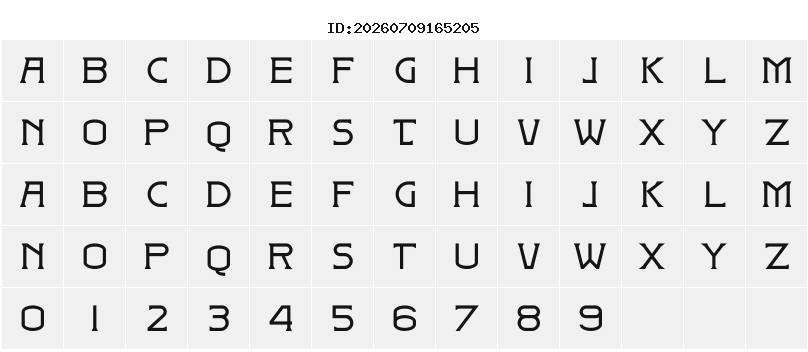
• Font Name: DK Badehaus
• Designer: David Kerkhoff
About DK Badehaus.otf
DK Badehaus.otf is a modern, elegant sans-serif font designed for ultimate readability and visual harmony. Perfect for branding, headlines, web design, and print materials.